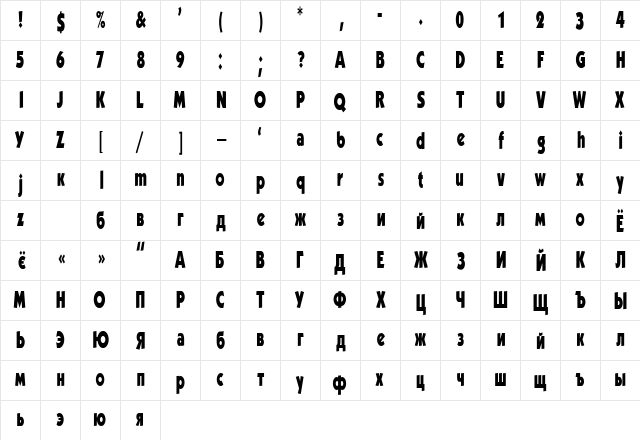
KabelCondensed ExtraBold
Design Context for KabelCondensed Typeface
KabelCondensed is a composed and adaptable typeface that performs quietly and consistently across a wide range of design contexts. The heavy weight commands attention and anchors typographic hierarchies. The condensed width makes it efficient for tight spaces without sacrificing legibility.